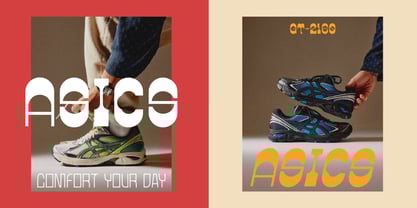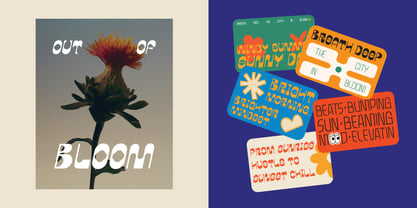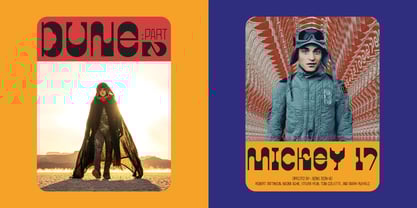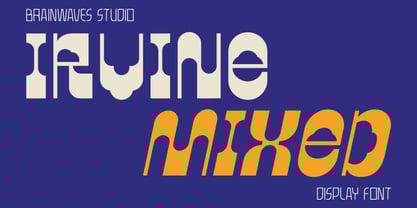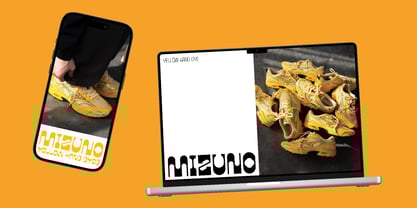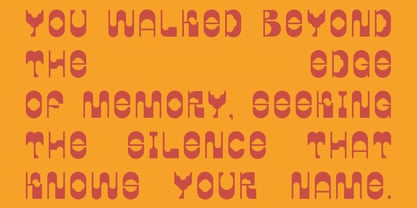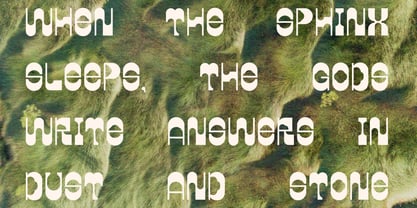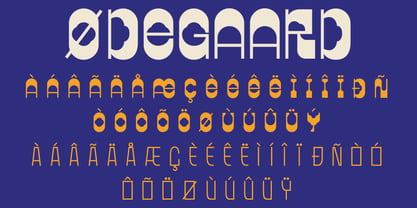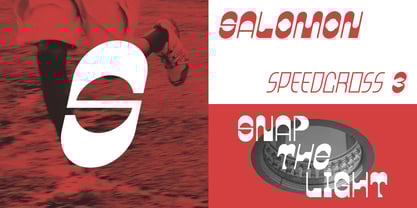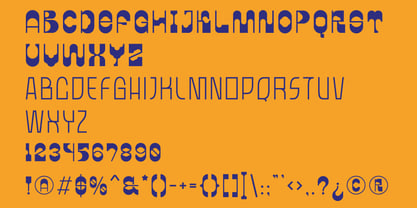
Irvine Mixed
by Brainwaves Studio
The Irvine Mixed Font Family was designed by Lucky Fitriadi and published by Brainwaves Studio. Irvine Mixed contains 2 styles.
Irvine Mixed is a vibrant and expressive display font that merges the funky curves of retro lettering with the angular edge of sci-fi aesthetics. Each character is designed to feel like a surprise—some are sharp, others soft, but all dance together in rhythm. It’s a typeface that doesn’t follow the rules—because it makes its own.
From music flyers and sneaker drops to editorial covers and urban fashion campaigns, Irvine Mixed injects playful chaos into polished designs. Use it loud, use it bold—this font was made to be seen and remembered.